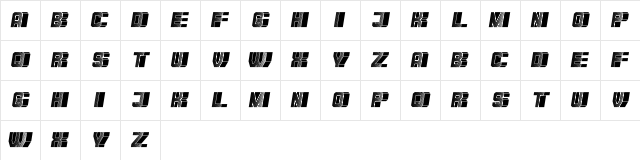
Blocchi Reverse Italic
Design Context for Blocchi Reverse Typeface
Blocchi Reverse is a composed and adaptable typeface that performs quietly and consistently across a wide range of design contexts. The dynamic lean of this cut emphasises speed and emphasis in any layout.